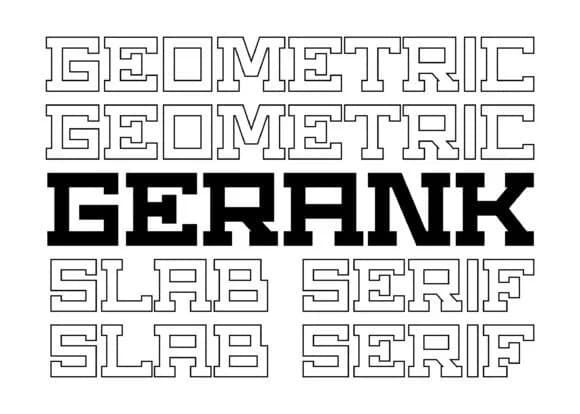
Gerank by BarakaType is a slab-serif display font built from thick, geometric forms that hit hard on the page. It's designed for work demanding real weight and commanding presence: varsity athletic apparel tags, streetwear brand logos, industrial construction company signage, and bold editorial headlines that own the layout without apology. The blocky, structural proportions give it a distinctly modernist character that reads as contemporary and urban without sacrificing legibility at any scale.
The typeface holds its own in competition with busy backgrounds and cramped applications. Use it solo for a minimal, no-nonsense look on book covers, brand identity systems, and architectural signage, or pair it with something lighter for visual contrast and breathing room. Its geometric precision communicates strength and forward momentum in equal measure. The heavy weight feels intentional and grounded, never boxy or cramped.
Gerank Font is a slab serif font that shines as a display or heading face. Pair it with a clean sans-serif or serif font for body text β the contrast creates a clear hierarchy while the two styles stay balanced and easy to read.